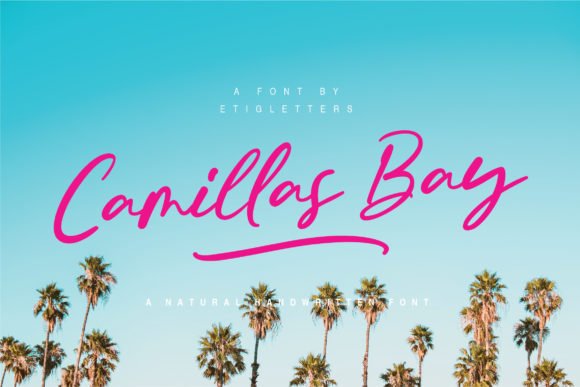
Discover the Elegance of Camillas Bay Font
You know that feeling when you’re brainstorming a new design project, and suddenly, the perfect font pops into your mind? For many creatives, that moment is what makes all the late nights and early mornings worth it. For me, that moment happened when I stumbled upon the Camillas Bay Font – a beautiful, laid-back script font that instantly elevates any design.
Crafted with smooth curves and a touch of sophistication, Camillas Bay Font is the perfect addition to fashion branding, editorial designs, or any project that requires a dash of elegance. Its versatility and charm make it a valuable asset for designers looking to add a unique touch to their work.
Camillas Bay Font Key Features
- Font Family: Camillas Bay
- Unique Characteristics: Elegant, cursive script with a touch of whimsy, suitable for invitations, wedding stationery, and other formal events.
- Font Style: Script, Casual, Elegant
Designer Review: Camillas Bay Font
Overall, I think Camillas Bay Font has a lot of potential. Here are some things that work well:
- ✨ Beautiful, cursive script style that’s perfect for titles, headings, or body text.
- ✨ Elegant, sophisticated feel that’s great for high-end brands or luxury products.
- ✨ Great for use in conjunction with serif fonts to create a nice contrast.
However, there are a few limitations that I think are worth mentioning:
- ⚠️ The font may be difficult to read at very small sizes, so be sure to test it at different scales.
- ⚠️ The font may not be the best choice for body text in long blocks of copy, as it can be a bit tiring to read.
- ⚠️ Some users may find the font’s ornate style to be distracting or overly decorative.
Overall, I think Camillas Bay Font is a great addition to any designer’s toolkit, but it’s not a one-size-fits-all solution. With careful use and consideration of its limitations, it can be a powerful tool for creating beautiful, eye-catching designs.
Tip: Use Camillas Bay Font for titles and headings to add a touch of elegance to your design.
Tip: Use Camillas Bay Font for custom typography projects, such as logo design or invitations.
Tip: Use Camillas Bay Font for presentations and documents that require a touch of sophistication.
Camillas Bay Font is ideal for:
- Title and heading design
- Custom typography projects
- Presentation and document design
- Invitations and stationery
Alternatives to Camillas Bay Font
Great Vibes Font is a modern, cursive script font that is perfect for creating a friendly and approachable atmosphere. It’s ideal for use in branding, packaging, and advertising materials where a playful and relaxed tone is desired.
Compared to Camillas Bay Font, Great Vibes Font has a more relaxed and casual feel, while Camillas Bay Font is more elegant and sophisticated. Great Vibes Font is also more versatile and can be used in a wider range of contexts.
Carolyna Pro Font is a elegant, script font that is perfect for creating a luxurious and high-end atmosphere. It’s ideal for use in branding, packaging, and advertising materials where a sophisticated and refined tone is desired.
Compared to Camillas Bay Font, Carolyna Pro Font has a more luxurious and refined feel, while Camillas Bay Font is more elegant and sophisticated but less refined. Carolyna Pro Font is also more suitable for use in formal contexts.
Pacifico Font is a beautiful, script font that is perfect for creating a relaxed and beachy atmosphere. It’s ideal for use in branding, packaging, and advertising materials where a laid-back and casual tone is desired.
Compared to Camillas Bay Font, Pacifico Font has a more relaxed and casual feel, while Camillas Bay Font is more elegant and sophisticated. Pacifico Font is also more suitable for use in outdoor and beach-themed contexts.
Camillas Bay includes a comprehensive character set that covers Latin, Cyrillic, and Greek alphabets. The font also includes a wide range of punctuation and symbol glyphs, as well as support for diacritical marks and ligatures.